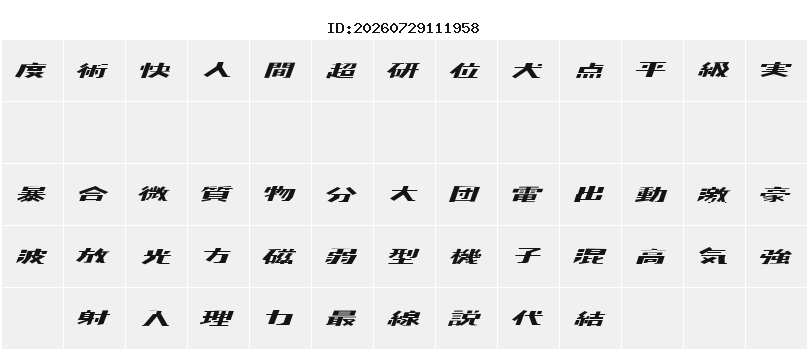
kaden Preview
About kaden.ttf
kaden.ttf is a modern, elegant sans-serif font designed for ultimate readability and visual harmony. Perfect for branding, headlines, web design, and print materials.